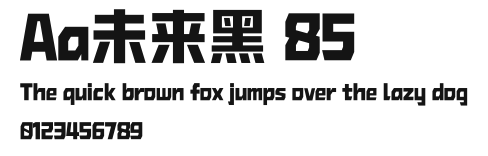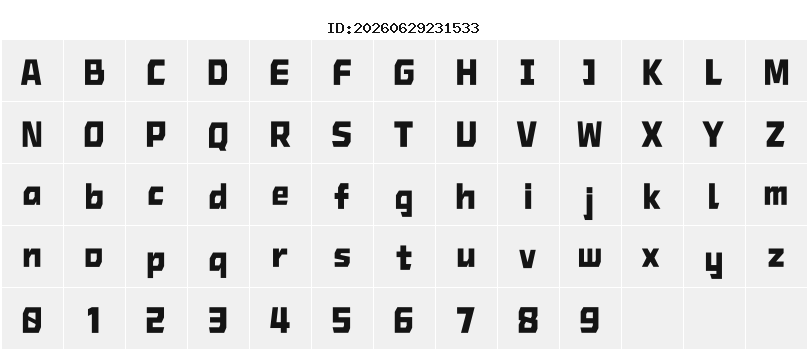
• Font Name: Aa未来黑 85
• Manufacturer: 翰美互通
About Aa未来黑 85.ttf
Aa未来黑 85.ttf is a modern, elegant sans-serif font designed for ultimate readability and visual harmony. Perfect for branding, headlines, web design, and print materials.